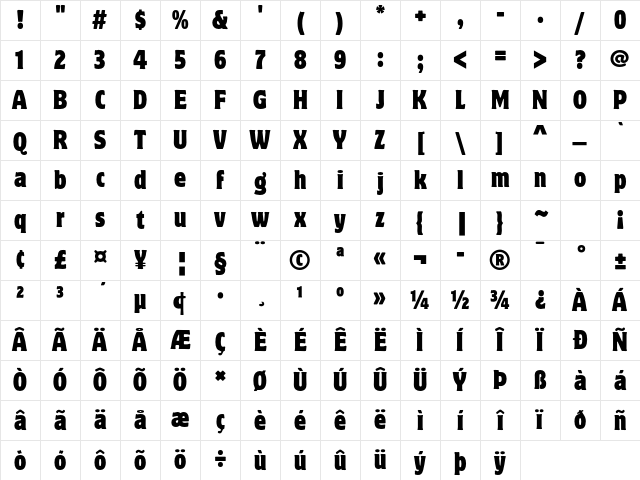
Motter Corpus ITC Std Condensed
Style: Condensed
Designer: Othmar Motter
Design Context for Motter Corpus ITC Std
Motter Corpus ITC Std is a composed and adaptable typeface that performs quietly and consistently across a wide range of design contexts. Its narrow stance lets it pack a punch even in space-constrained designs.